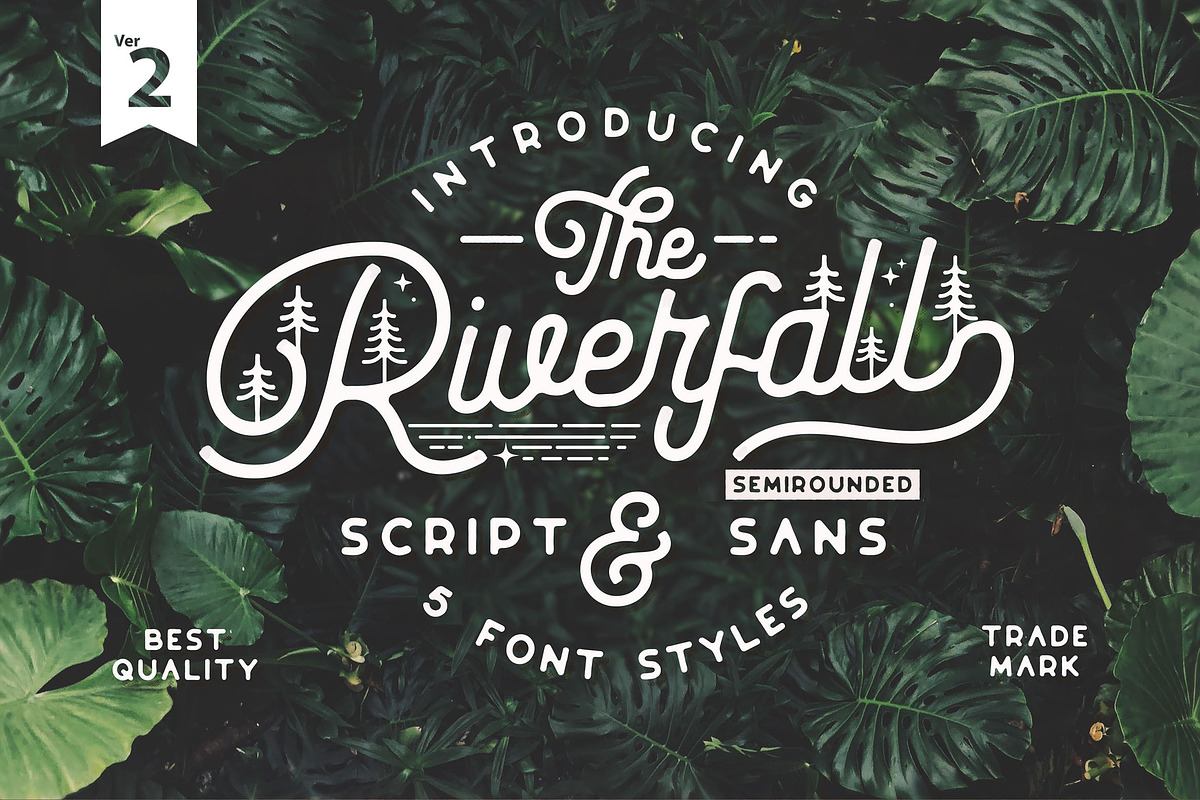
Riverfall SemiRounded Typeface Ver.2 Free Download is a sleek, modern typeface with soft, rounded edges that bring a friendly and contemporary feel to your designs. Version 2 enhances the original with refined curves, improved legibility, and a versatile structure perfect for branding, UI/UX design, packaging, and editorial projects.
With its clean lines and approachable style, Riverfall SemiRounded Typeface Ver.2 Free Download strikes the perfect balance between professional and playful. It works beautifully for tech startups, lifestyle brands, and creative portfolios—anywhere you need clarity with personality.
This font performs well across print and digital platforms, offering a smooth, polished look without feeling too rigid or sterile. Feel free to test it in your personal or demo projects, but please remember: commercial use requires a valid license. Bring warmth and modernity together in your next design with Riverfall.